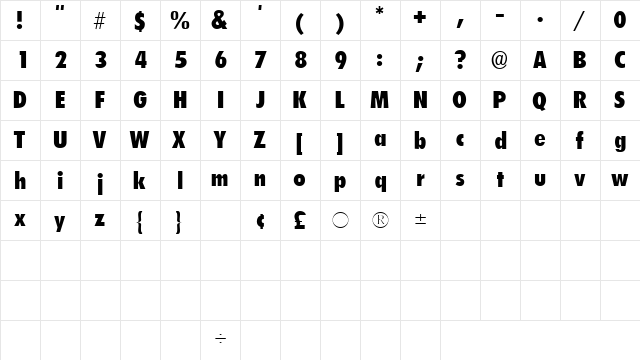
IsomarSSK Regular
Design Context for IsomarSSK Typeface
IsomarSSK offers clean, dependable letterforms without strong stylistic allegiance, making it a practical choice for designers who need flexibility.